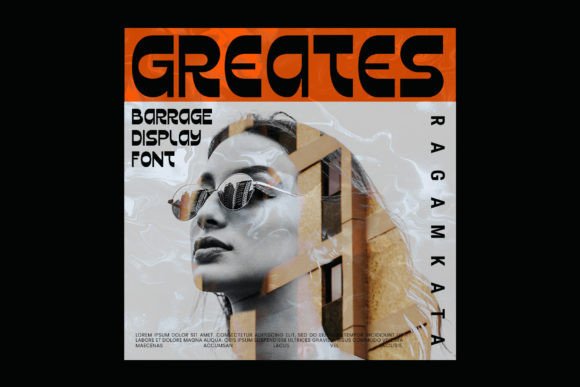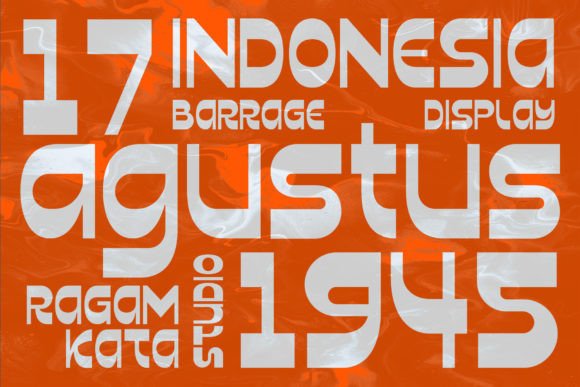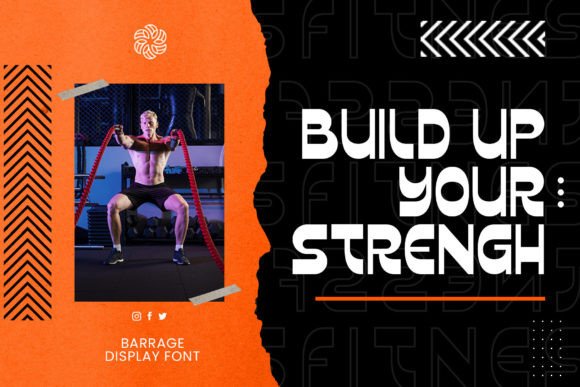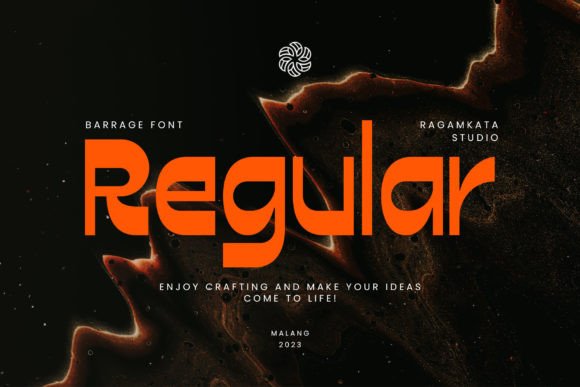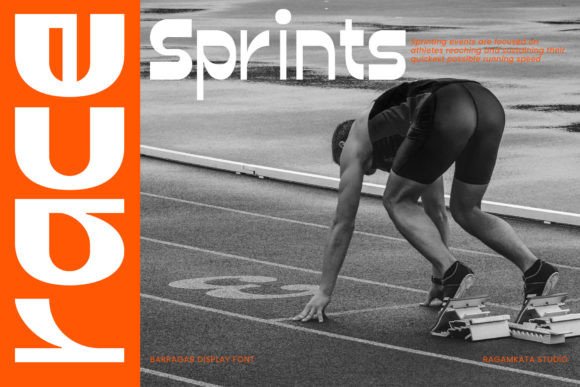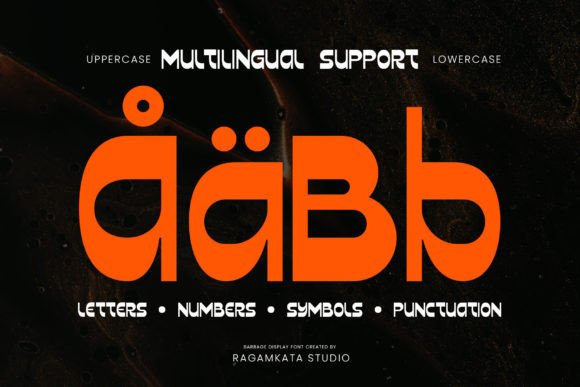
Introducing Barrage Font: A Modern Masterpiece of Typography
In the world of typography, a new star has emerged: Barrage Font. This innovative typeface design is making waves with its unique blend of cheerful boldness and artistic flair. Barrage presents a fresh take on modern typography, perfect for designers and crafters looking to make a statement.
The Design Philosophy Behind Barrage
Barrage Font is the result of meticulous craftsmanship, where each letter is carefully shaped to strike a balance between confidence and elegance. The design philosophy behind Barrage is to create a typeface that exudes boldness while maintaining a touch of sophistication. This is achieved through the combination of box-like lines, which provide a sturdy foundation, and subtle curves that add a creative flair.
Key Features of Barrage Font
- Cheerful Boldness: Barrage Font is designed to grab attention with its bold and cheerful personality.
- Artistic Touches: The font features artistic touches that add a creative flair to any design project.
- Balanced Design: The box-like lines and subtle curves work together to create a balanced design that is both confident and elegant.
Ideal Applications for Barrage Font
Barrage Font is perfect for projects that aim to stand out from the crowd. Its unique design makes it an excellent choice for:
- Eye-catching Magazine Titles: Add a bold and creative touch to your magazine titles with Barrage Font.
- Spirited Advertisements: Use Barrage Font to create attention-grabbing advertisements that showcase your brand’s personality.
- Captivating Posters: Make a statement with Barrage Font on your posters, whether it’s for a concert, event, or product launch.
- Graphic Designs: Barrage Font is versatile and can be used in various graphic design projects, such as brochures, flyers, and more.
Why Choose Barrage Font?
In a world where typography plays a crucial role in design, Barrage Font offers a unique solution for designers and crafters looking to make a statement. Here are just a few reasons why Barrage Font stands out:
- Unique Design: Barrage Font offers a fresh take on modern typography, setting it apart from more traditional typefaces.
- Versatility: The font’s versatility makes it suitable for a wide range of design projects.
- Attention-Grabbing: Barrage Font is designed to grab attention, making it perfect for projects that need to stand out.
| Font Name | Barrage Font |
| Author | RagamKata Studio |
Barrage Font is a game-changer in the world of typography. Its unique blend of cheerful boldness and artistic touches makes it an excellent choice for designers and crafters looking to make a statement. With its versatility, attention-grabbing design, and balanced aesthetic, Barrage Font is sure to become a go-to typeface for projects that aim to stand out. Whether you’re working on a magazine title, advertisement, poster, or graphic design, Barrage Font is the perfect choice.